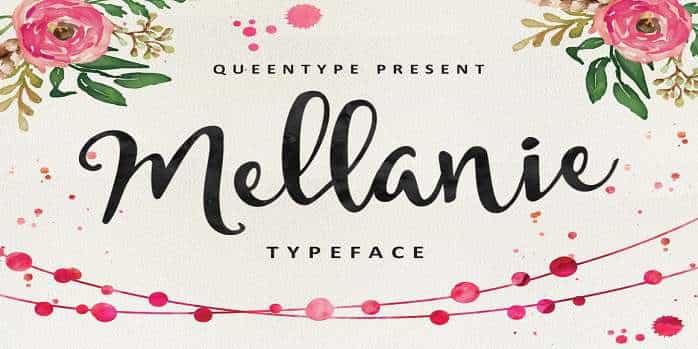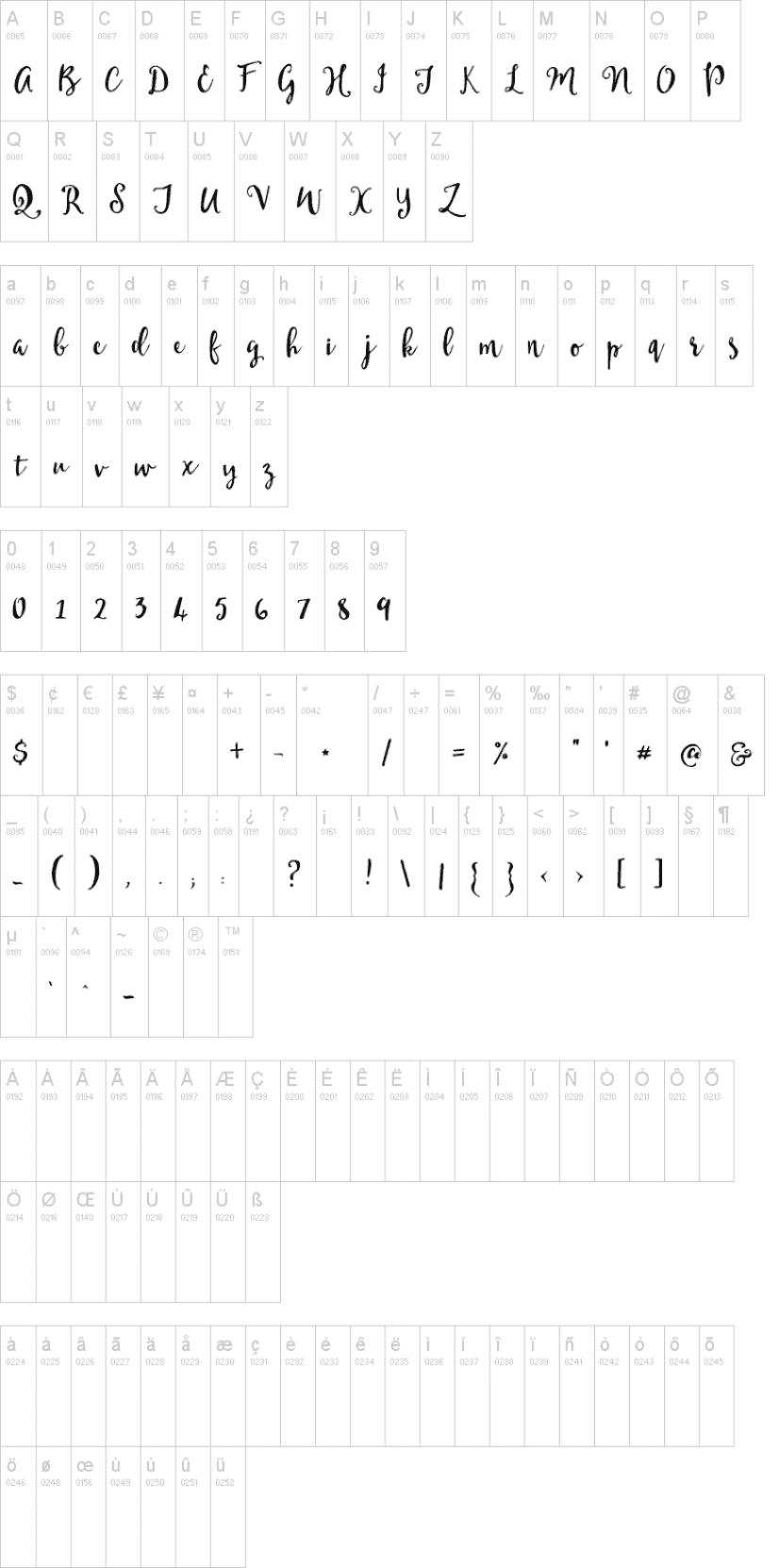
Discover Mellanie Font, part of the Brush collection—a versatile and unique font perfect for adding a personal touch to your projects. Download it for free and enjoy crafting designs with style, from invitations to social media posts. This font is available exclusively for personal use, giving you the freedom to create without limits. Unlock your creativity with Mellanie Font today!